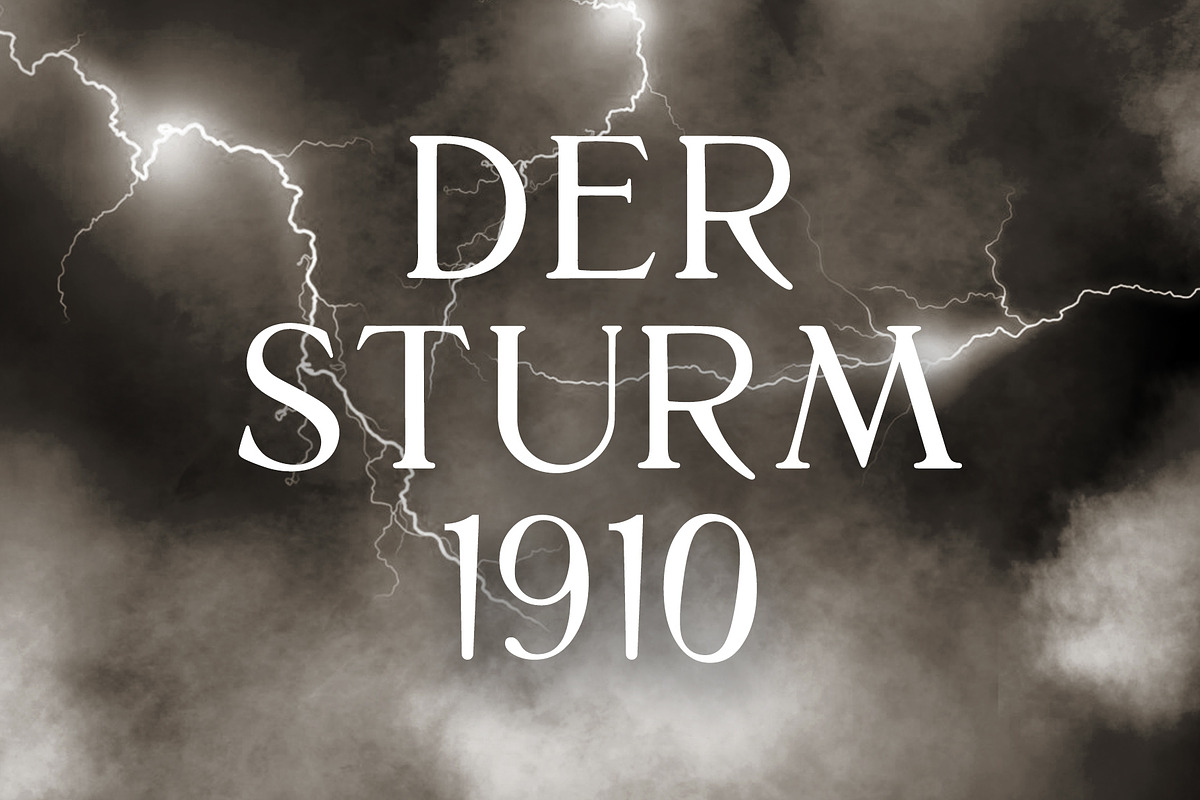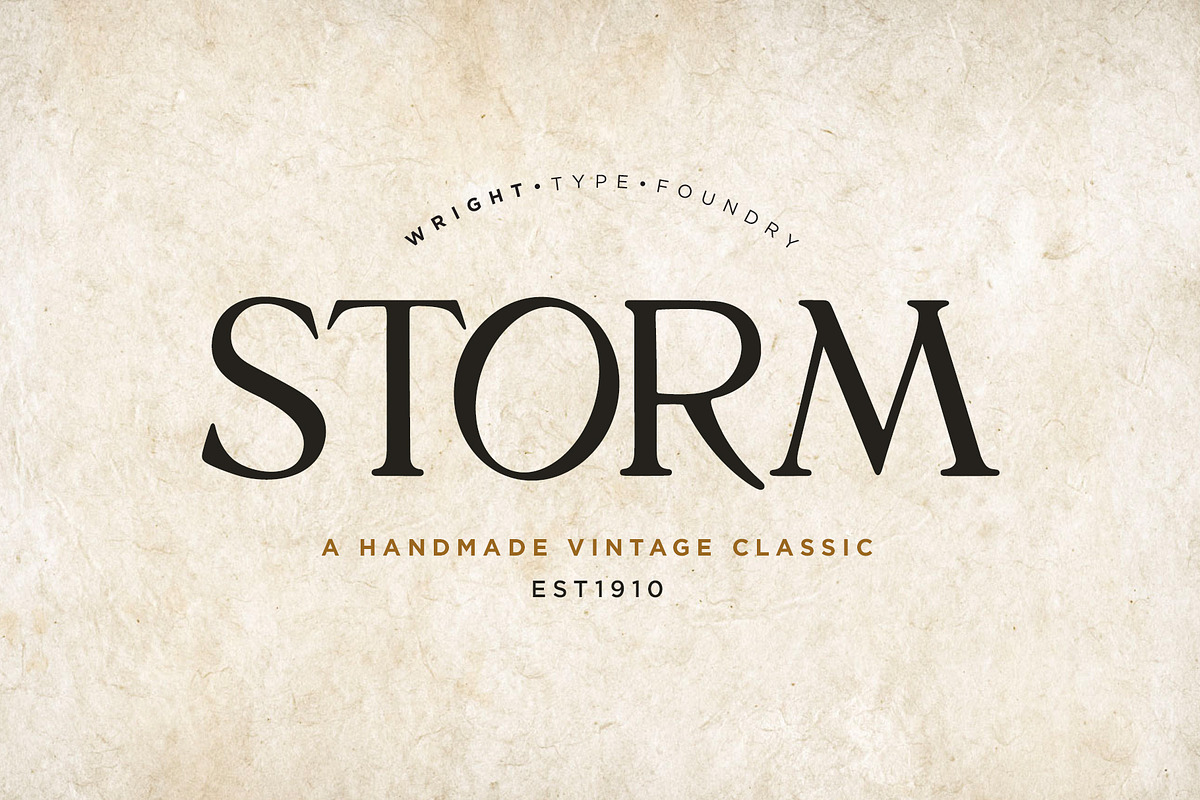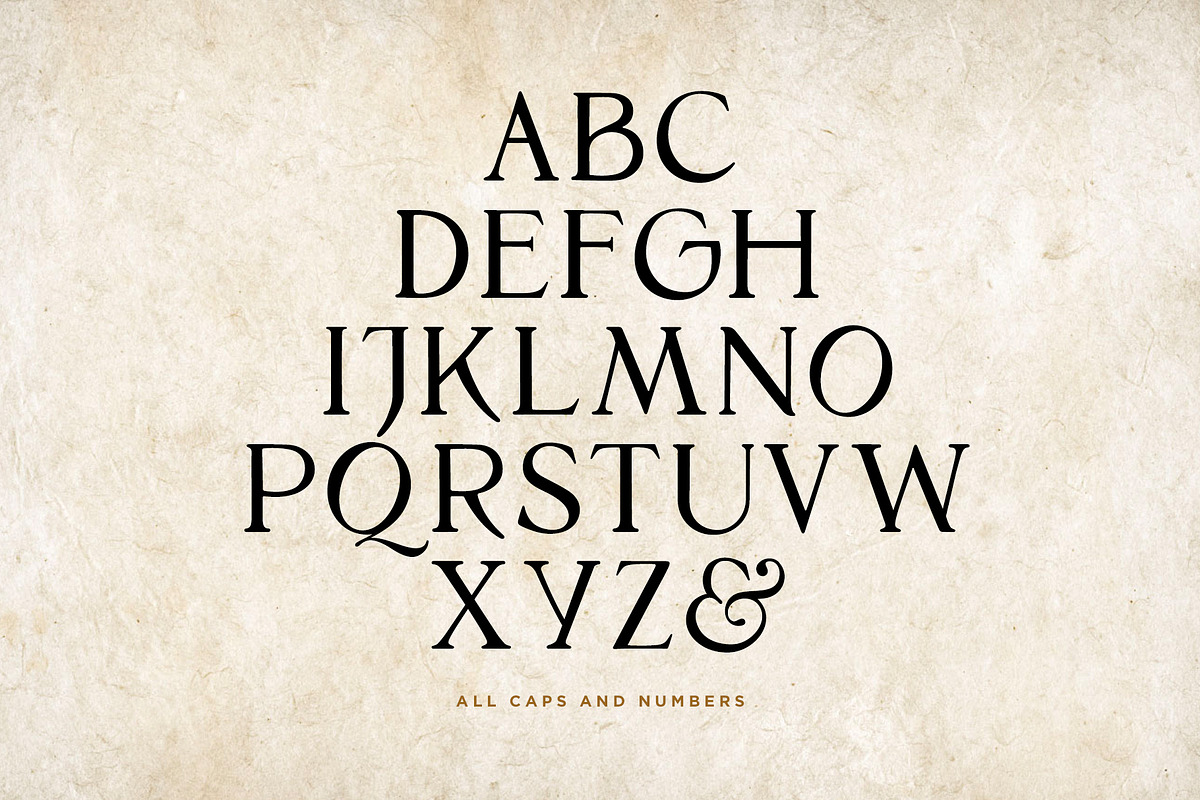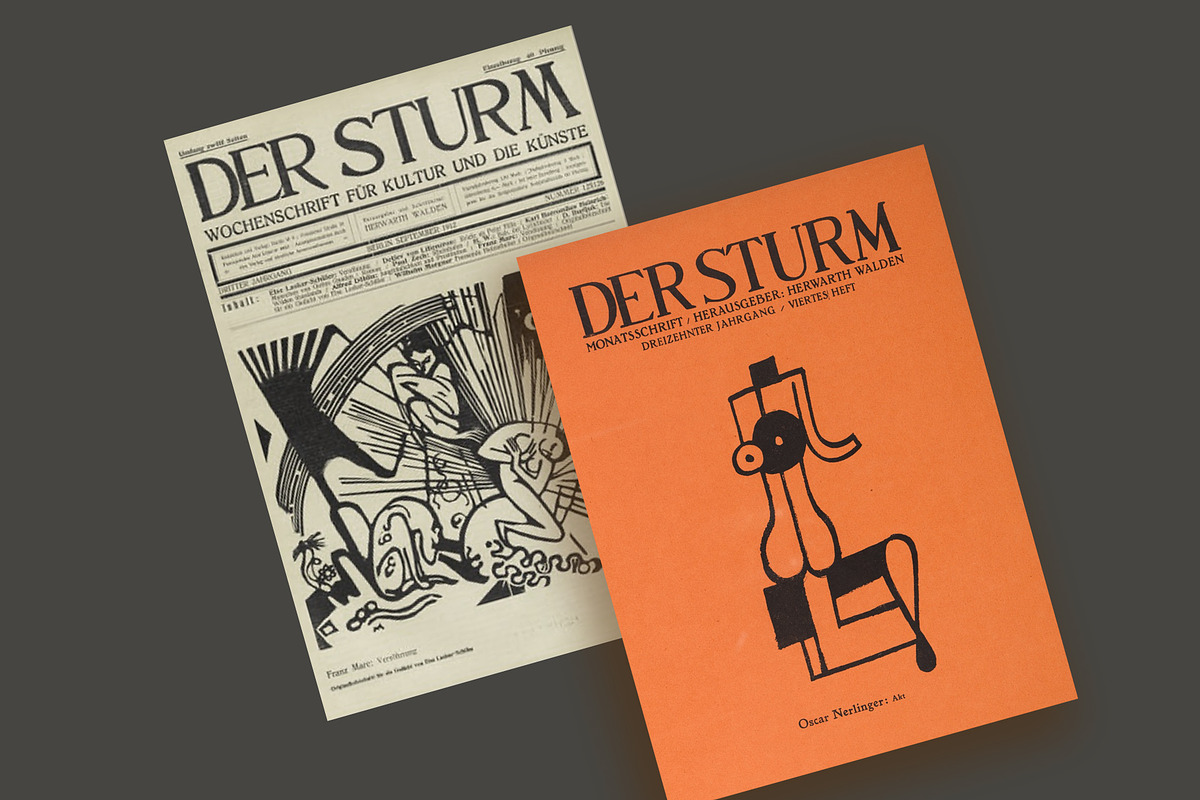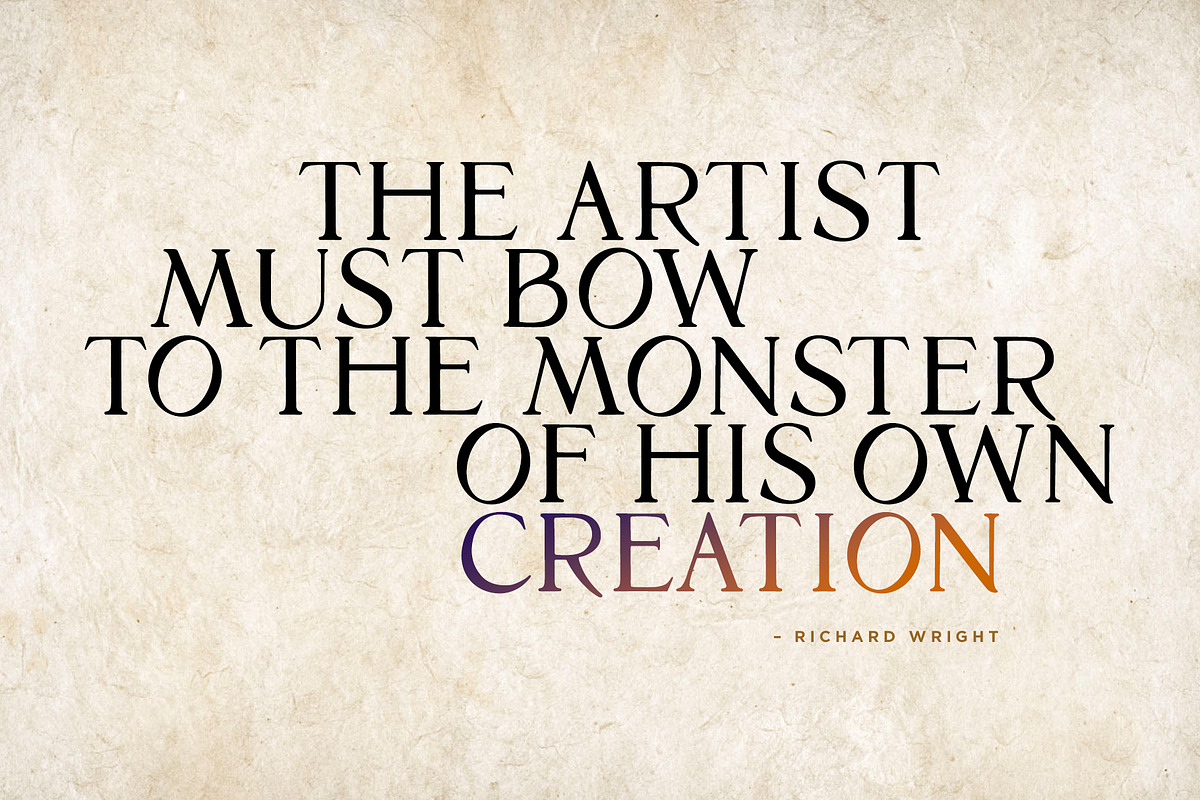
Storm | A Handmade Vintage Classic
STORM is inspired by "Der Sturm" magazine. Der Sturm was a German avant-garde art and literary magazine founded by Herwarth Walden, covering Expressionism, Cubism, Dada and Surrealism, among other artistic movements.